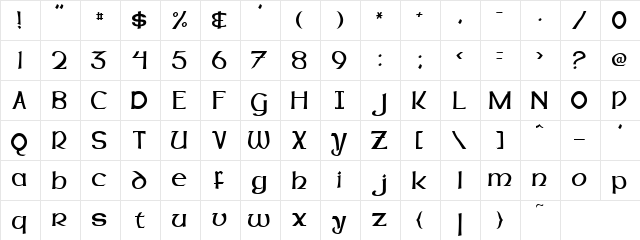
genuine roman Regular
Design Context for genuine roman Typeface
genuine roman offers clean, dependable letterforms without strong stylistic allegiance, making it a practical choice for designers who need flexibility.